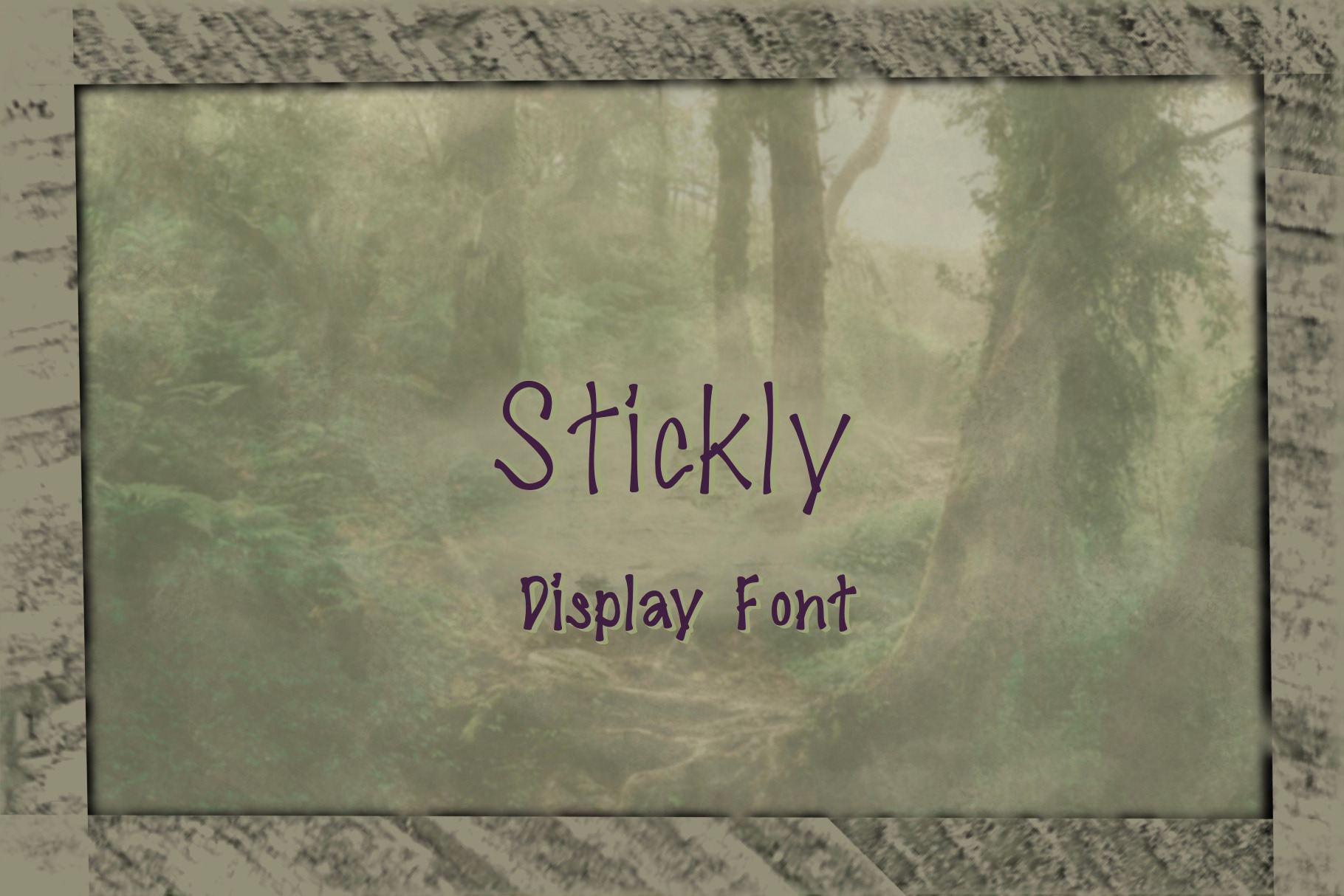
Stickly Display Font
Stickly is a nature inspired hand-drawn display font. Perfect accessory to give your next creation some dimension and character.
Great for announcements, planners, journals, greeting cards, wall decor, etc…
This comes in both medium and bold.